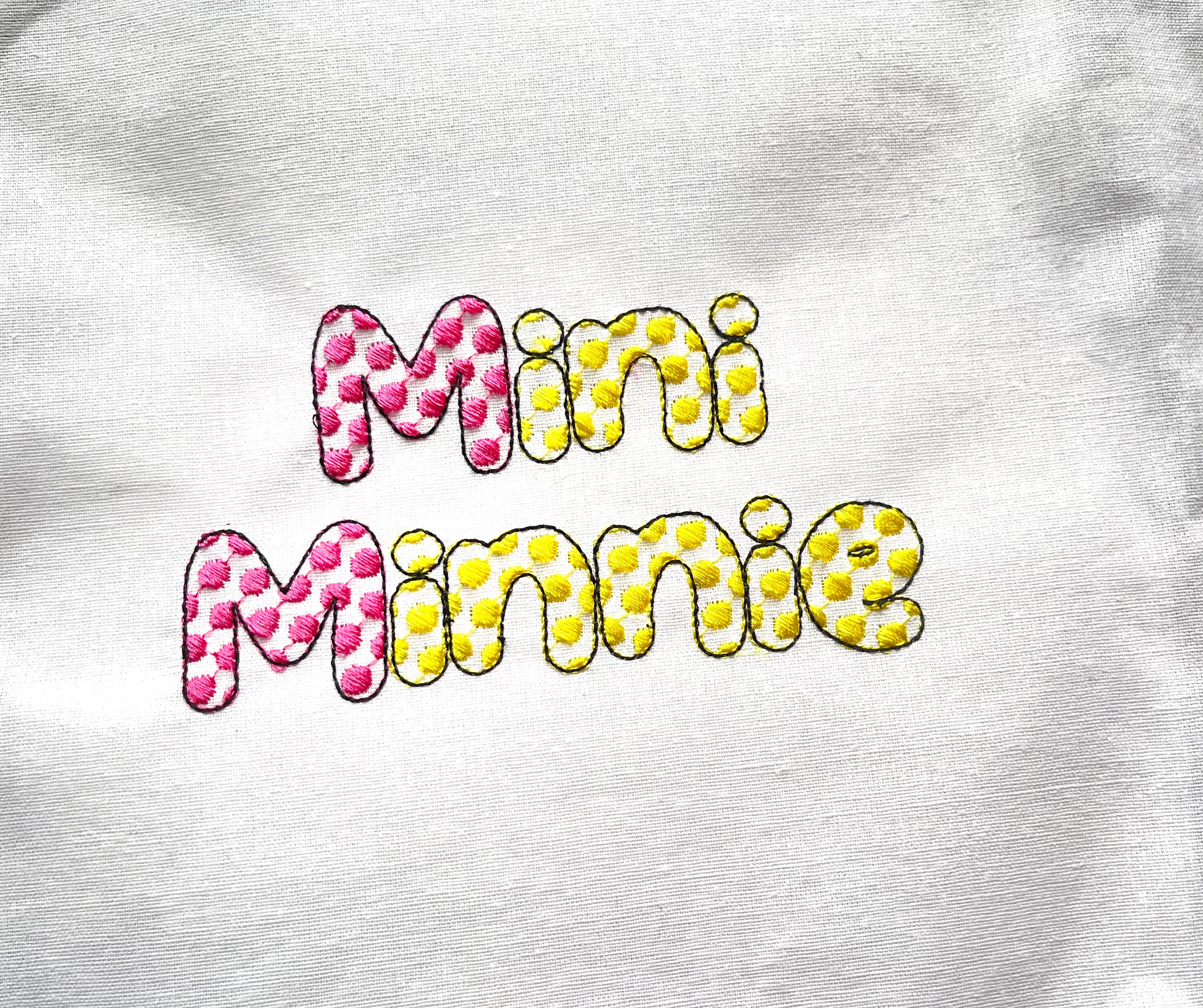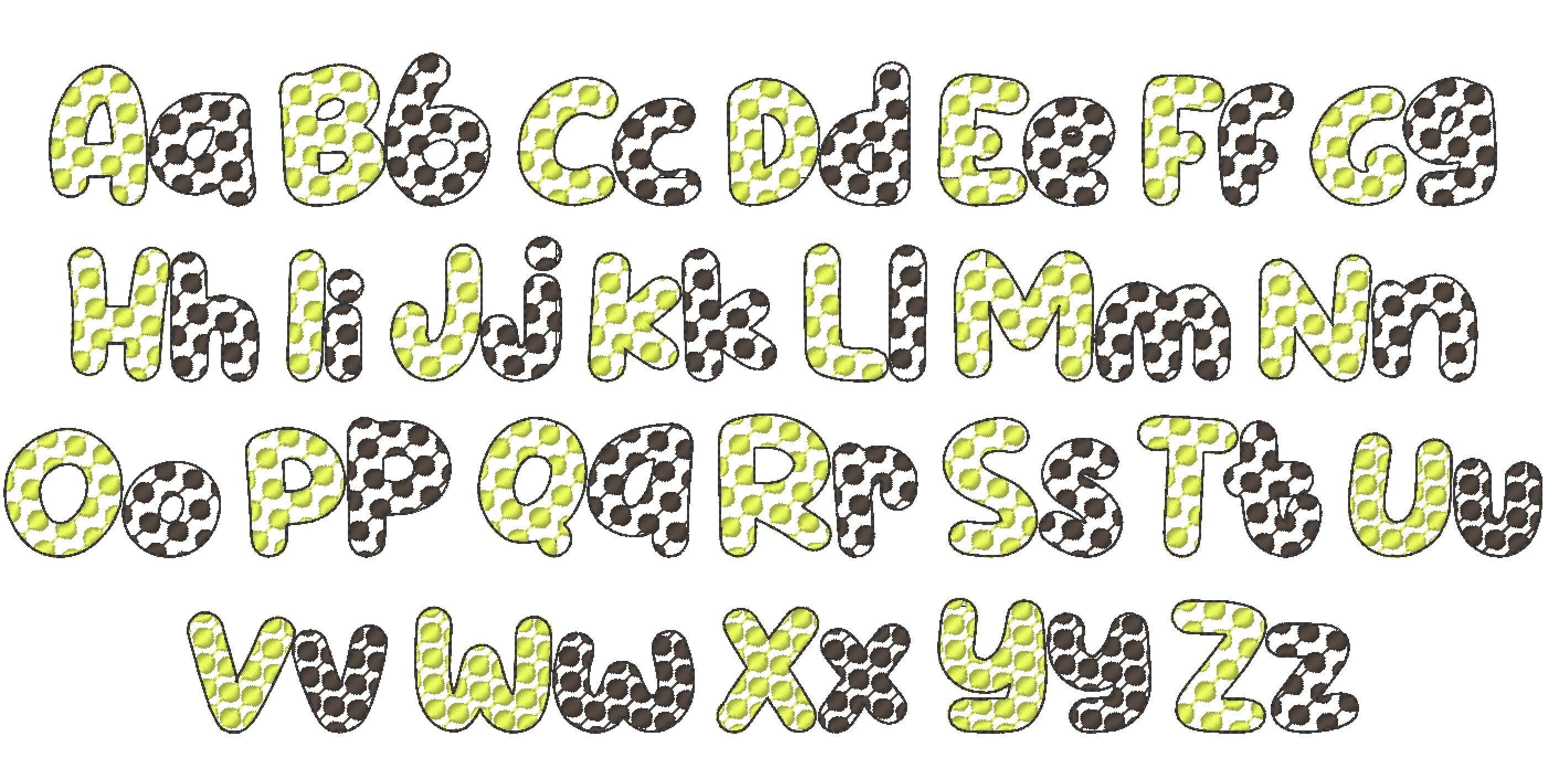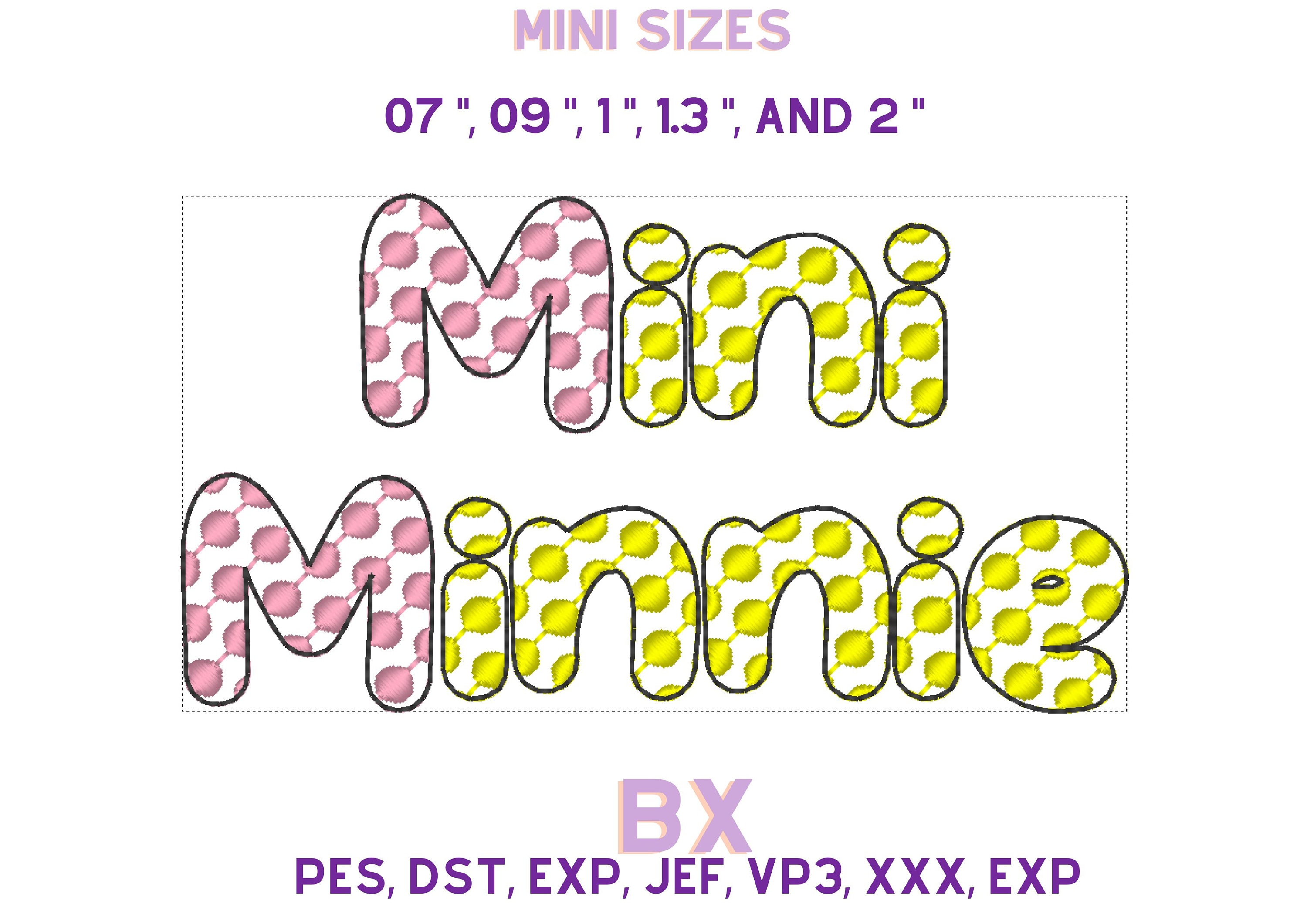
Retro Minnie Polka dot patterned Font machine embroidery designs alphabet mini sizes from 0.7 thru 2 inches kids name pretty letters
Uppercase and lowercase letters